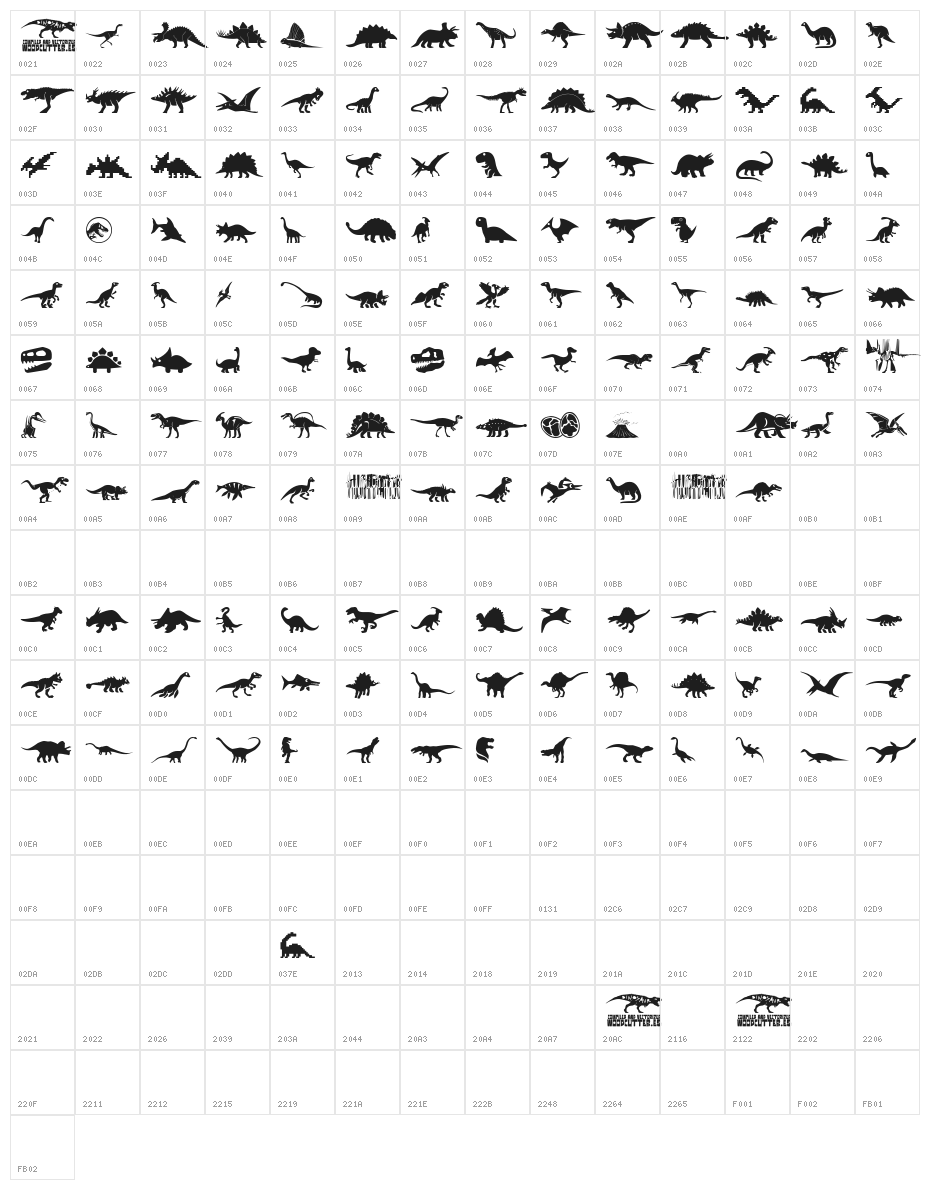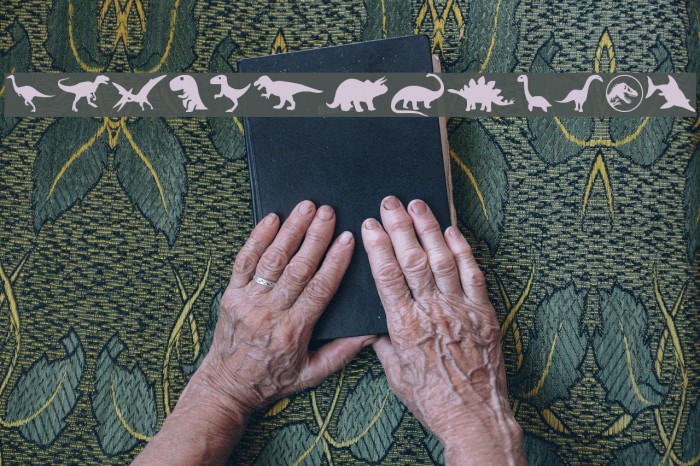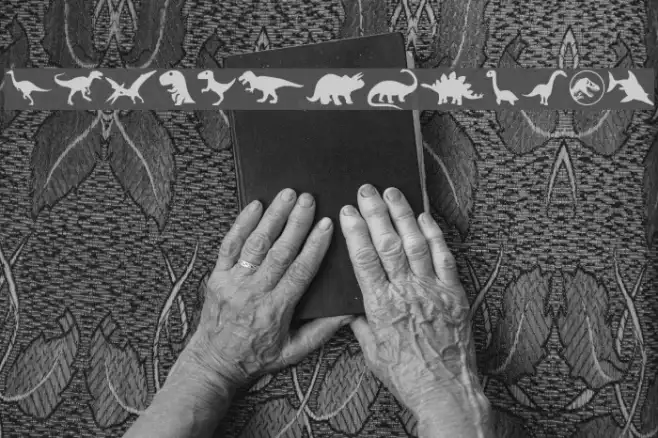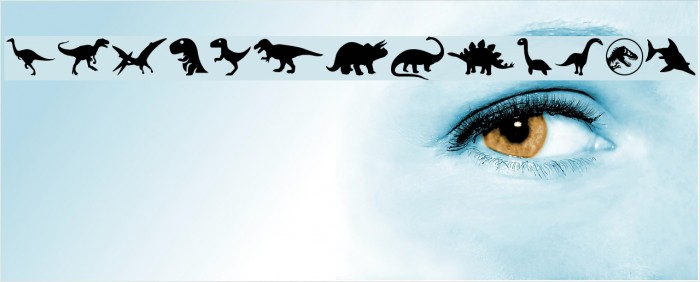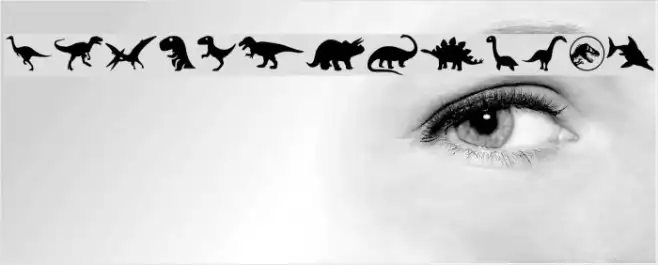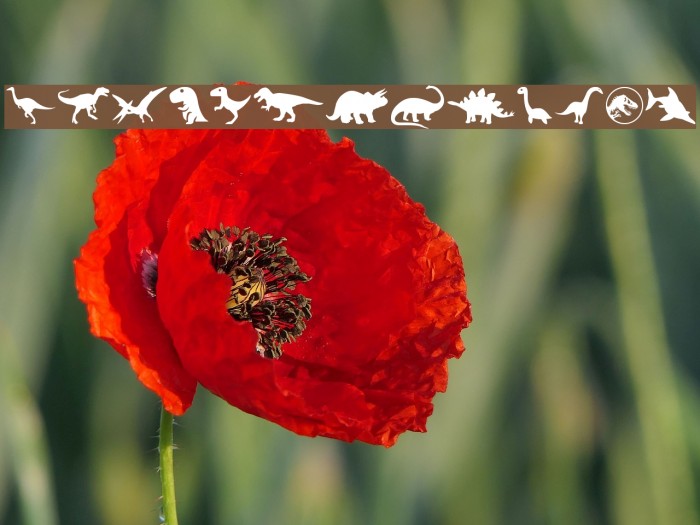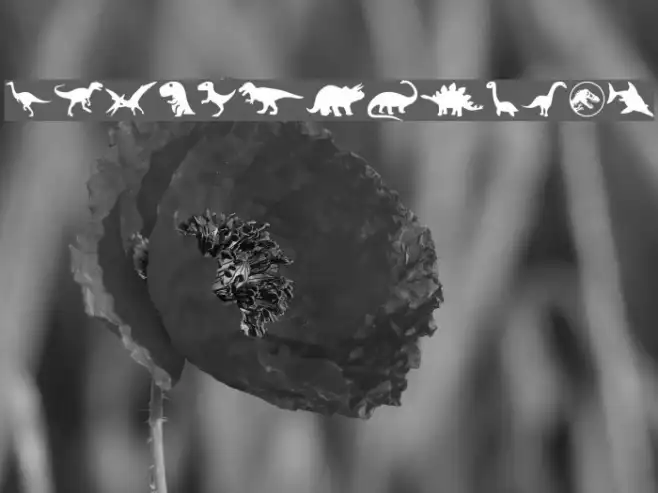
Dinosaur Icons Font
Dinosaur Icons Description
A collection of black dinosaur and prehistoric creature silhouettes, each glyph representing a different species or related icon in a playful, illustrative style. The icons are solid, with no internal detail, and vary in pose and orientation.
| Overall Style | Decorative, Playful, Thematic |
| Use Case | Icons, Logos, Educational graphics, Themed posters |
| Proposed Projects | ChildrenΓ’β¬β’s educational materials, themed party invitations, museum signage, toy packaging, infographic illustrations. |